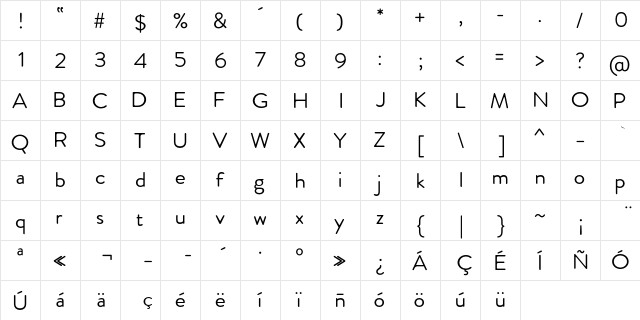
Febrero Regular Font Preview
Febrero Regular
Design Context for Febrero Typeface
Febrero offers clean, dependable letterforms without strong stylistic allegiance, making it a practical choice for designers who need flexibility.
Pro Tip: Use Febrero in both headline and body roles to test its range before committing to a single application.